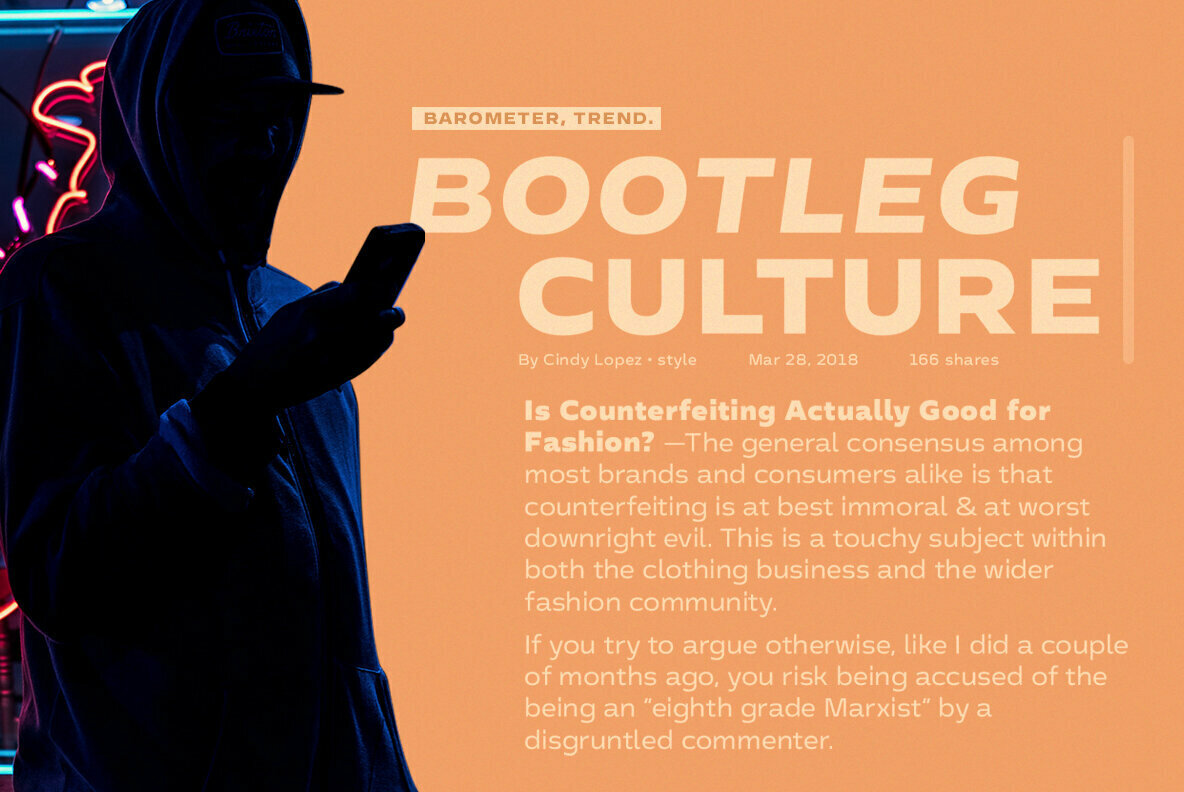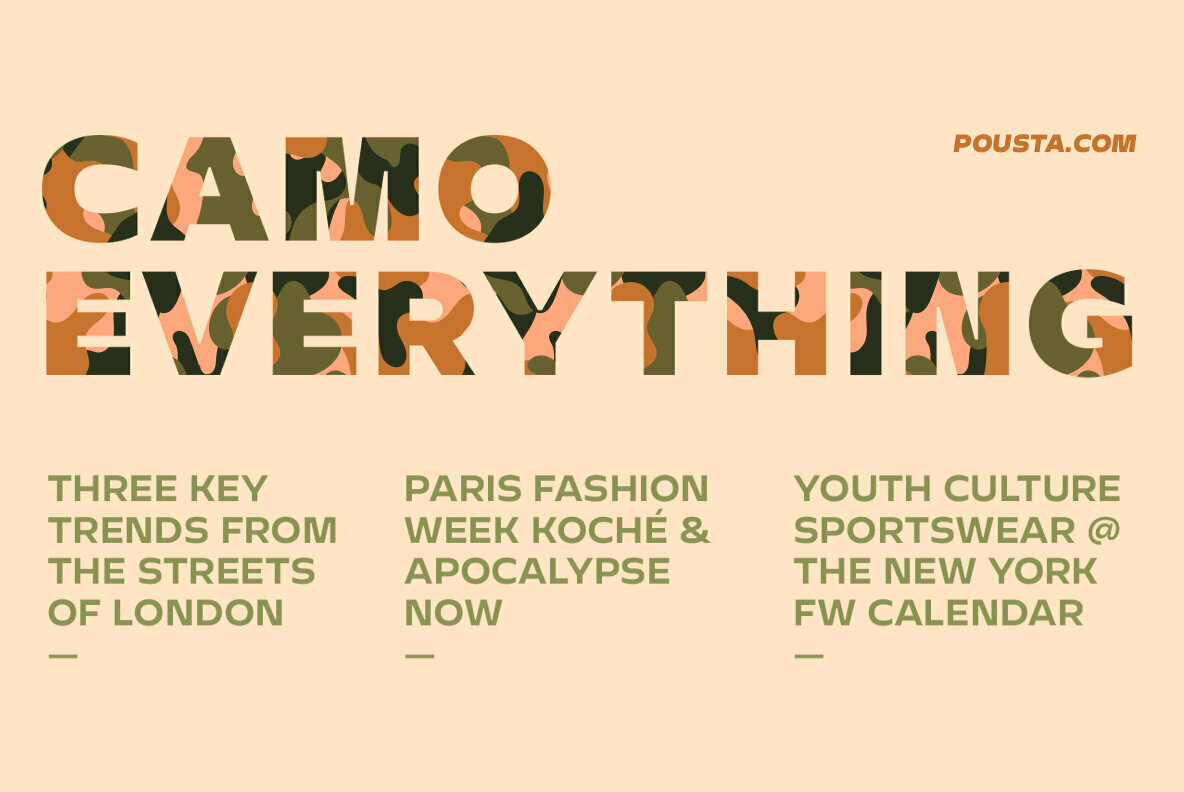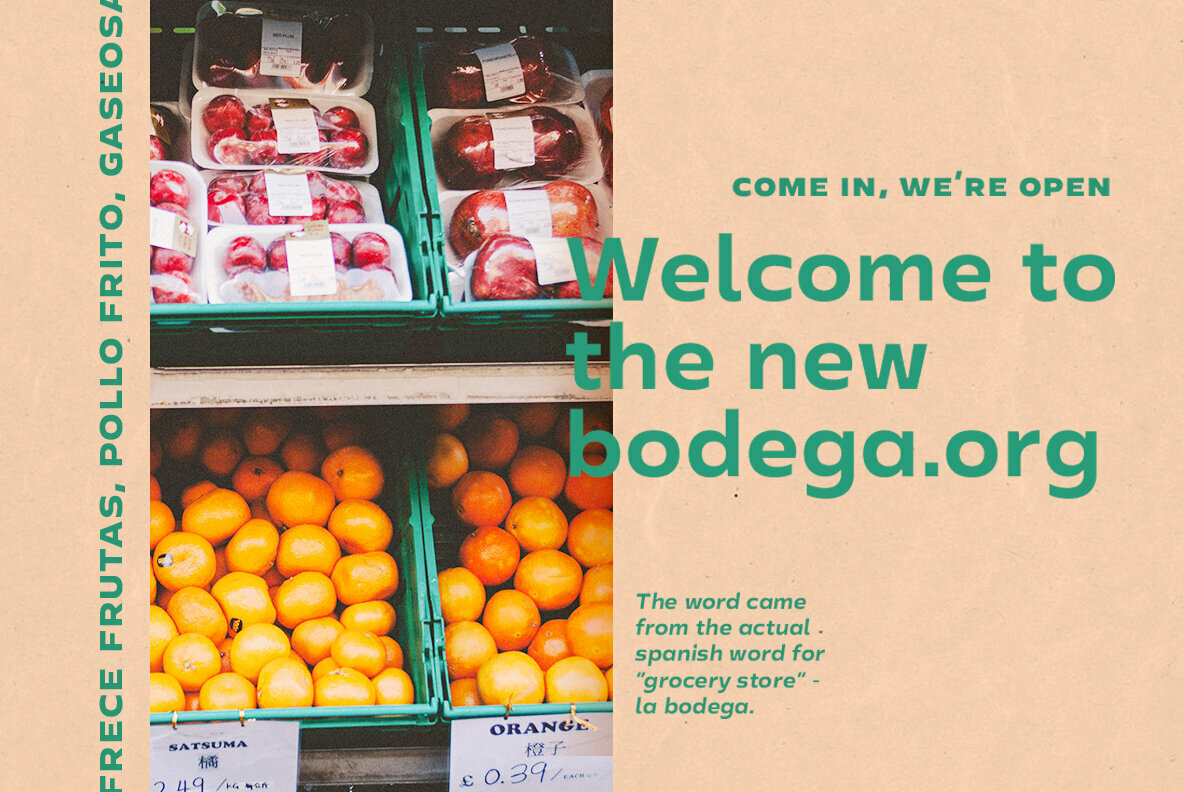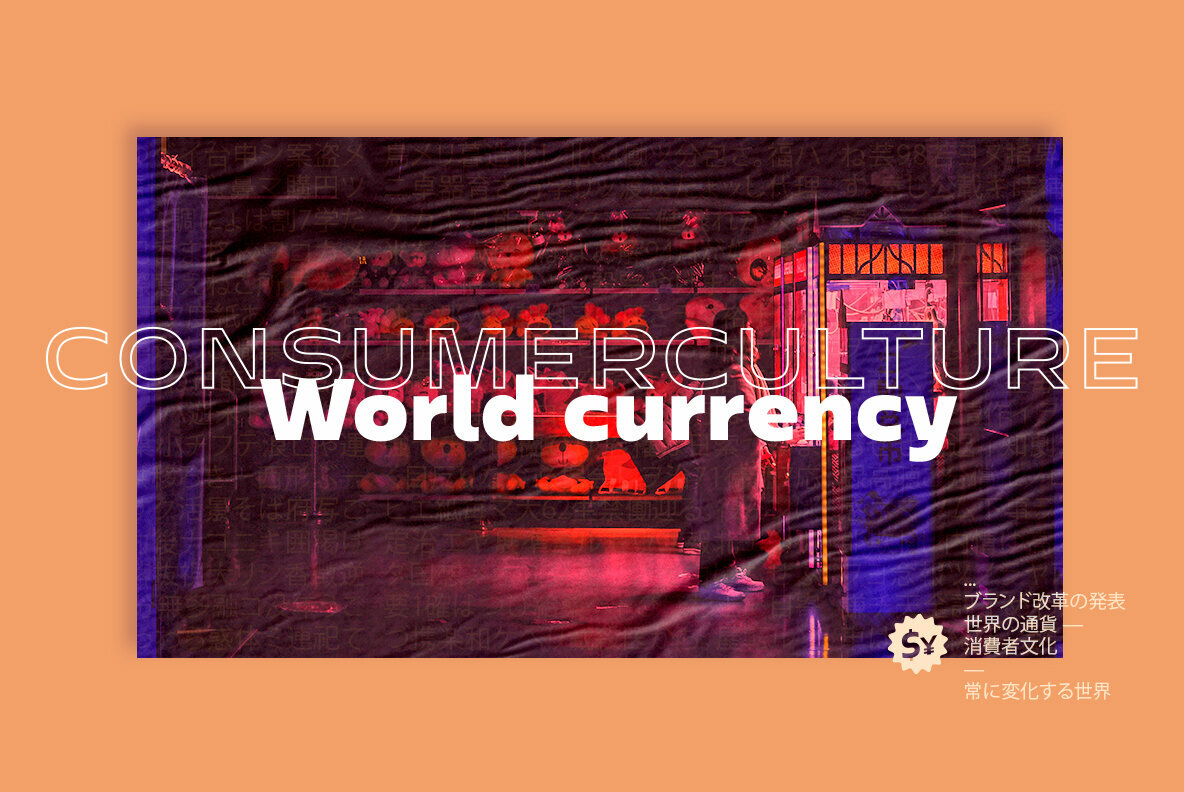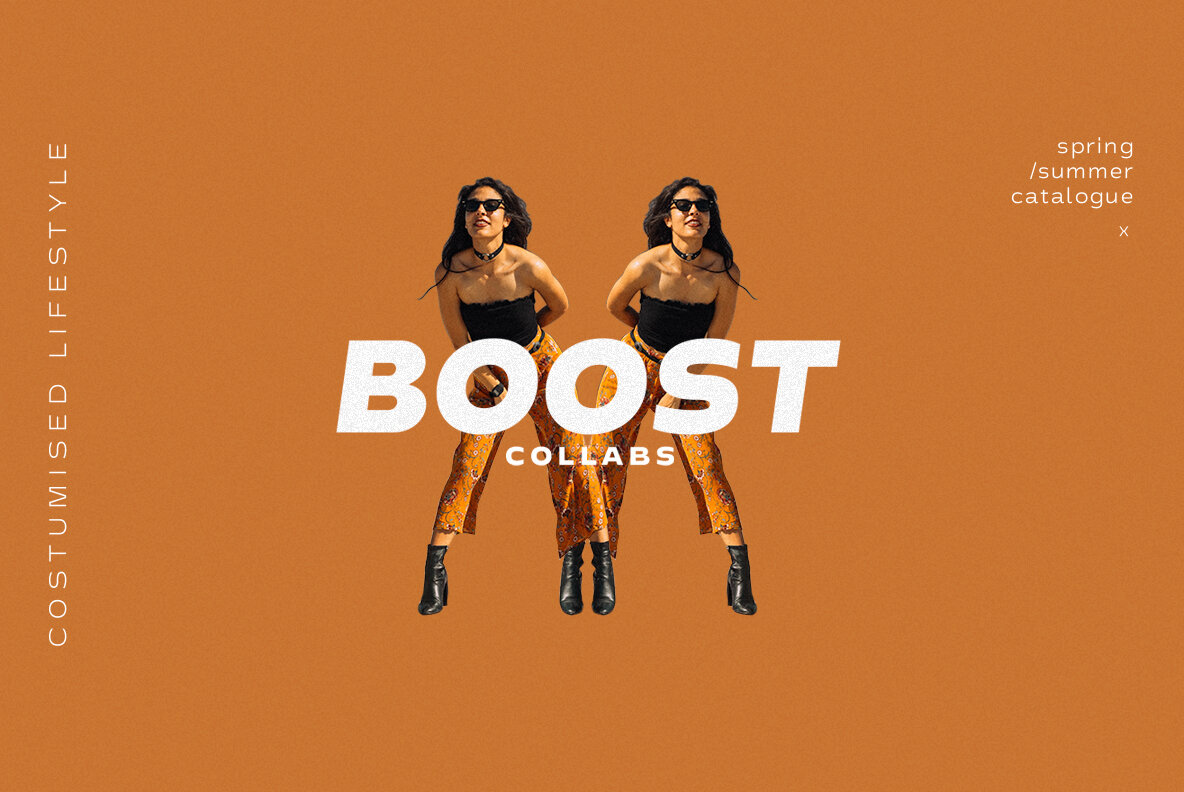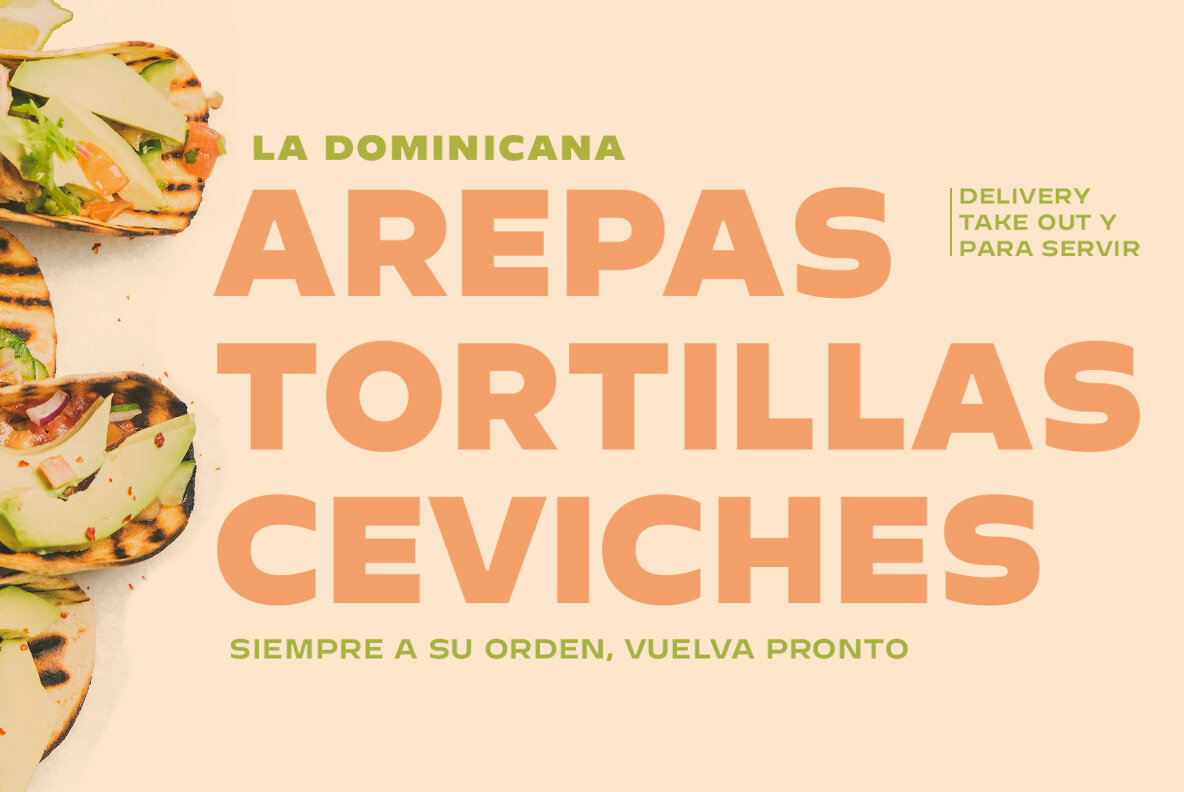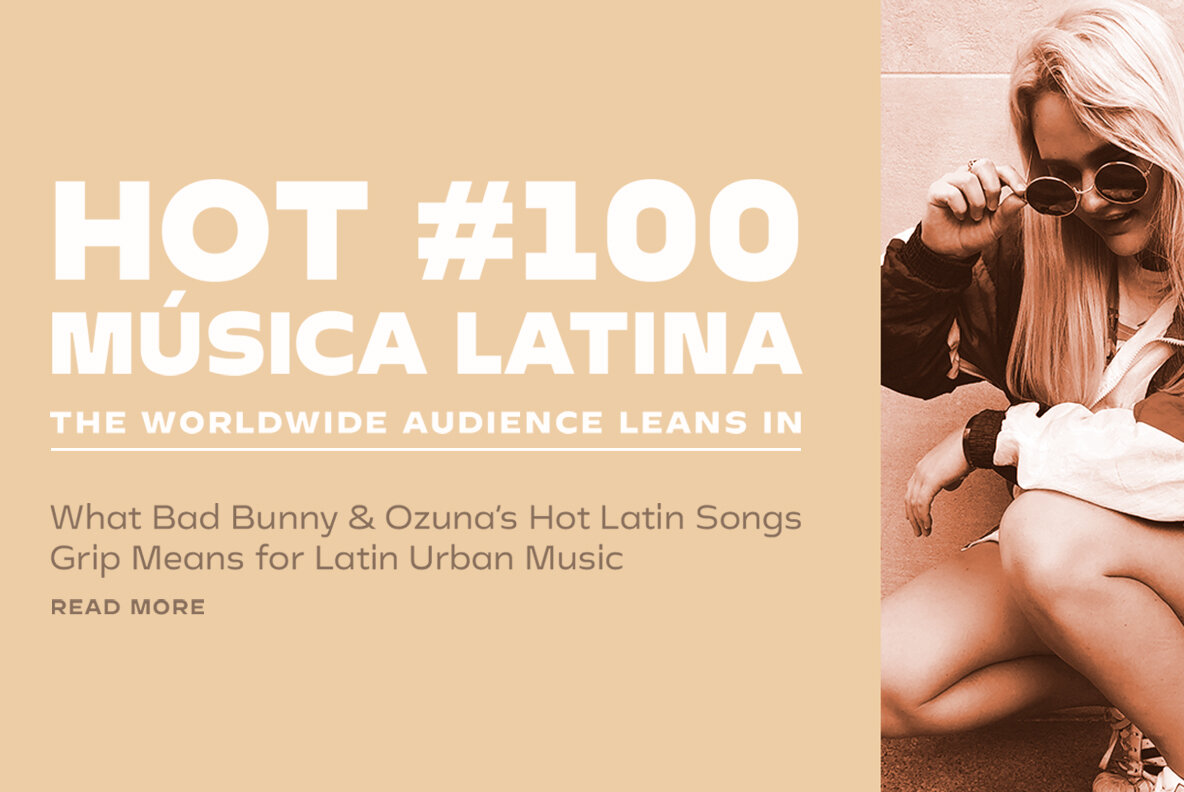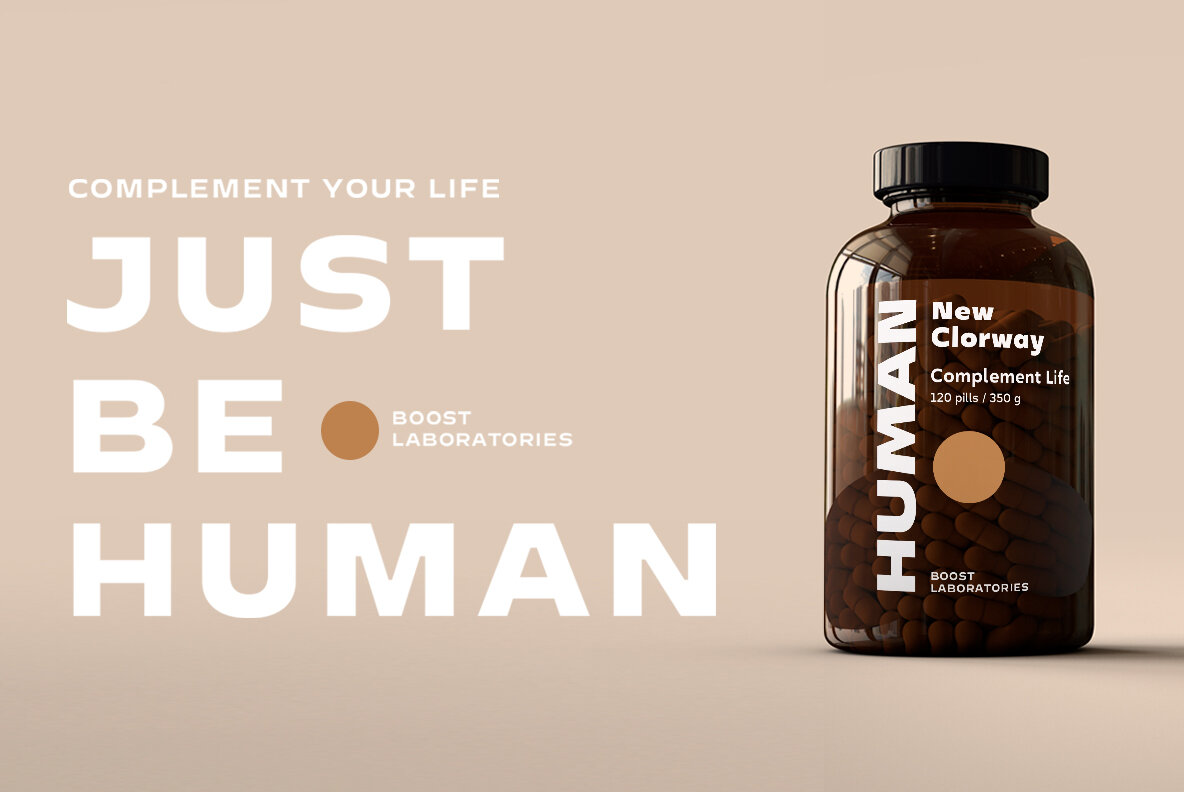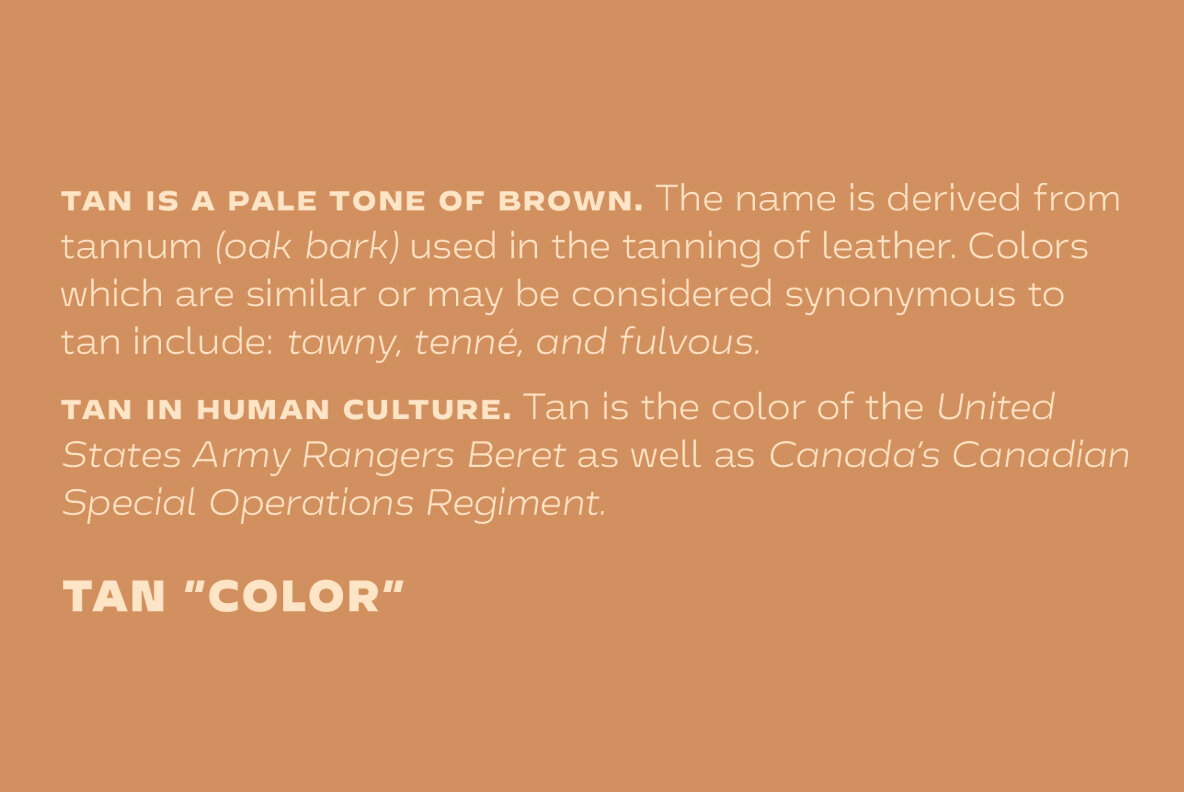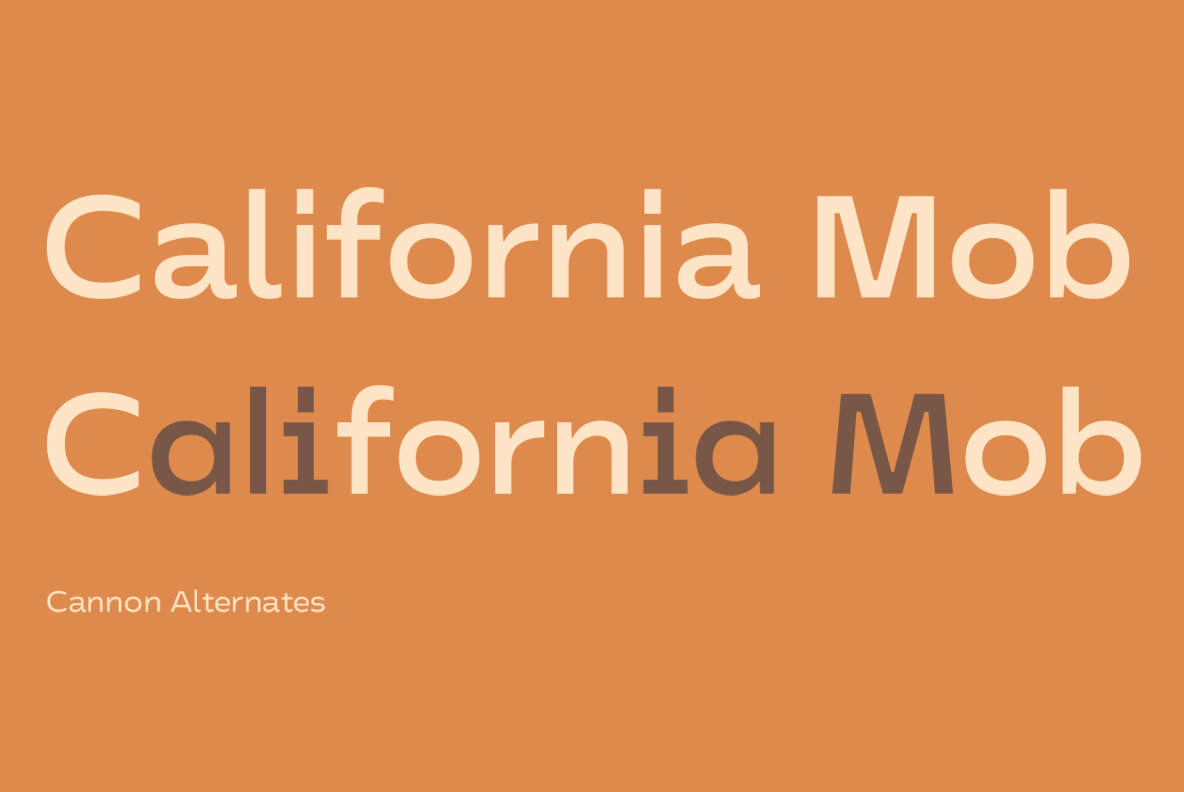
Cannon Font
The Cannon family is the result of combining the clean aesthetics from a classic sans neo-grotesque with a touch of a geometric design. The result is a simple but dynamic typeface with retro and technological airs.
Cannon is ideal for robust advertising, bold brand identities and packaging, also suitable for high impact headlines and short texts. This type family consists of 36 variants and 9 weights (thin, extra light, light, regular, book, medium, bold, extra bold, black), matching italics for all weights and widths, matching small caps for all weights and widths, alternate characters and extended language support. We are proud to introduce: Cannon.